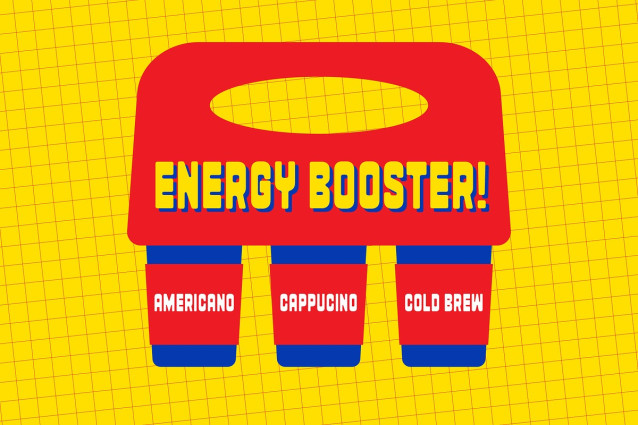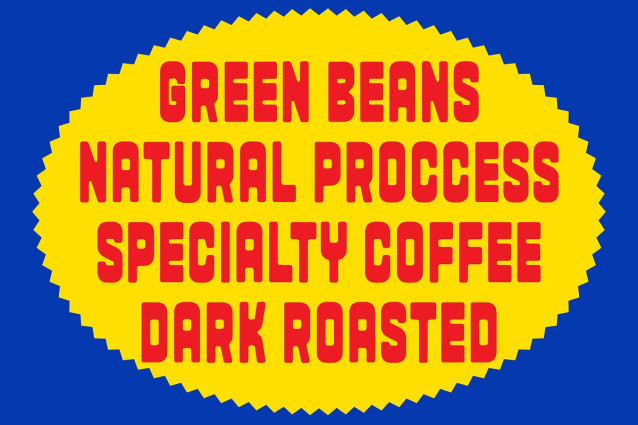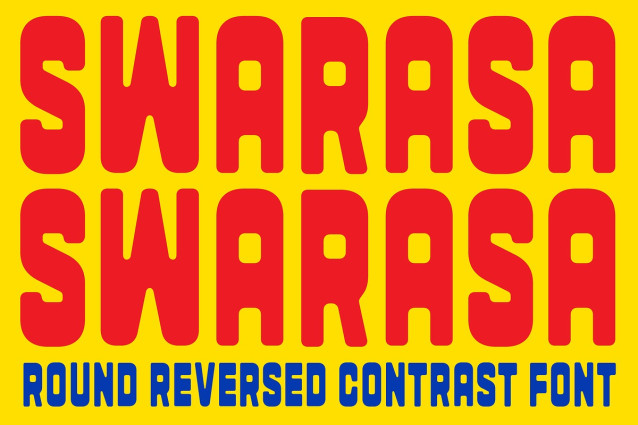
Swarasa Font
Swarasa Font – Round Reversed Contrast Font is a unique display typeface with a round reversed contrast style that feels bold, playful, and full of character. Its inverted contrast and chunky rounded shapes bring a mix of retro vibes and modern quirkiness, making it stand out while staying highly readable.